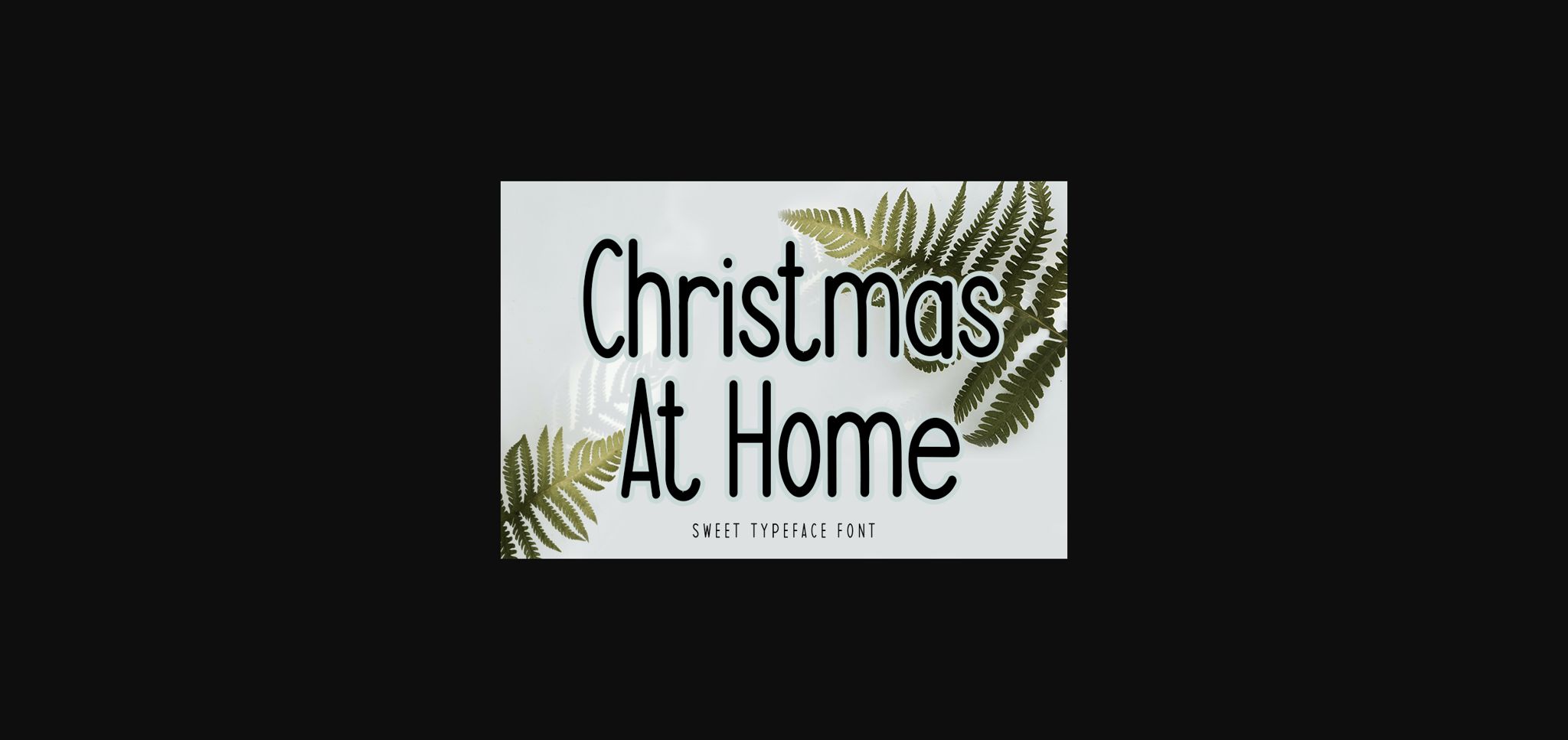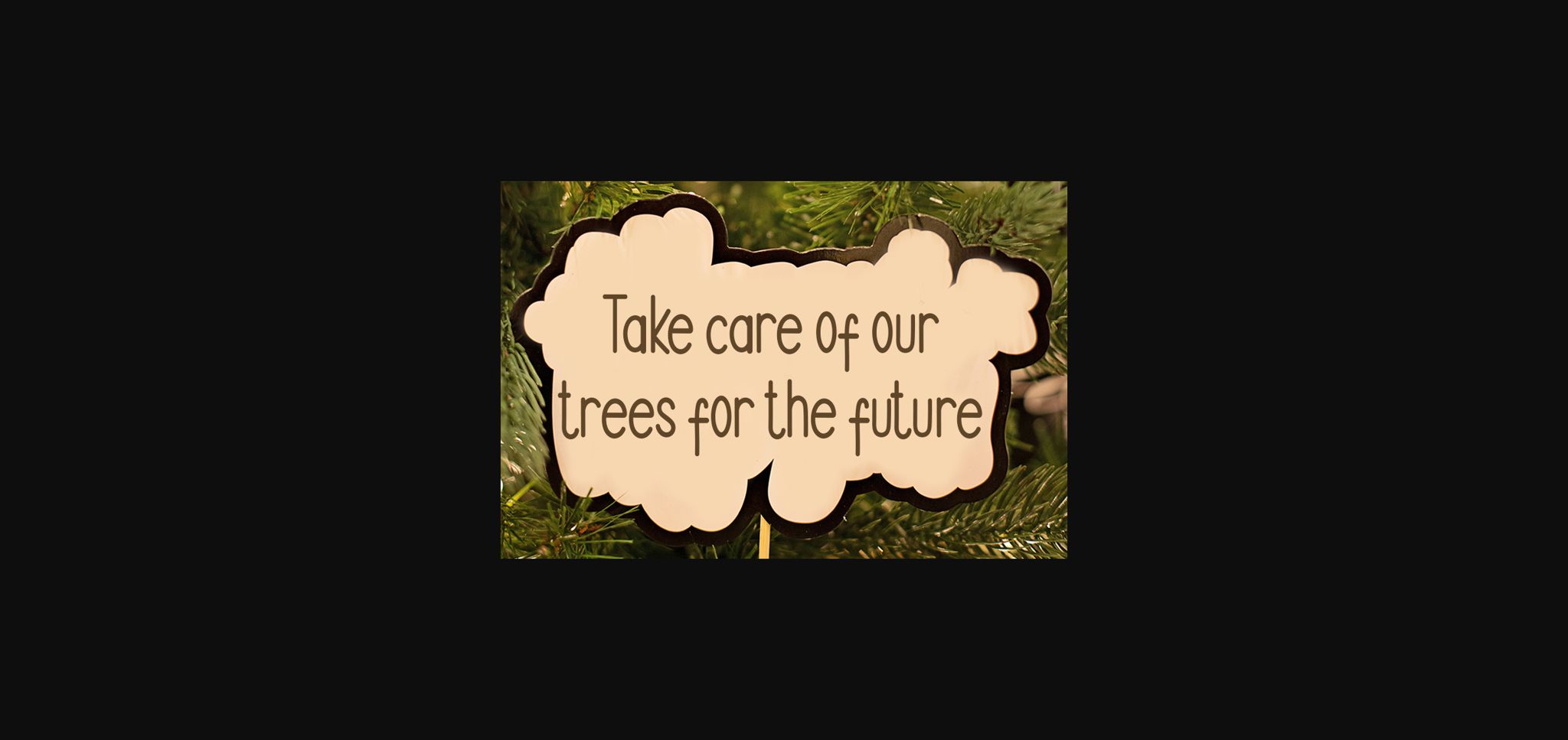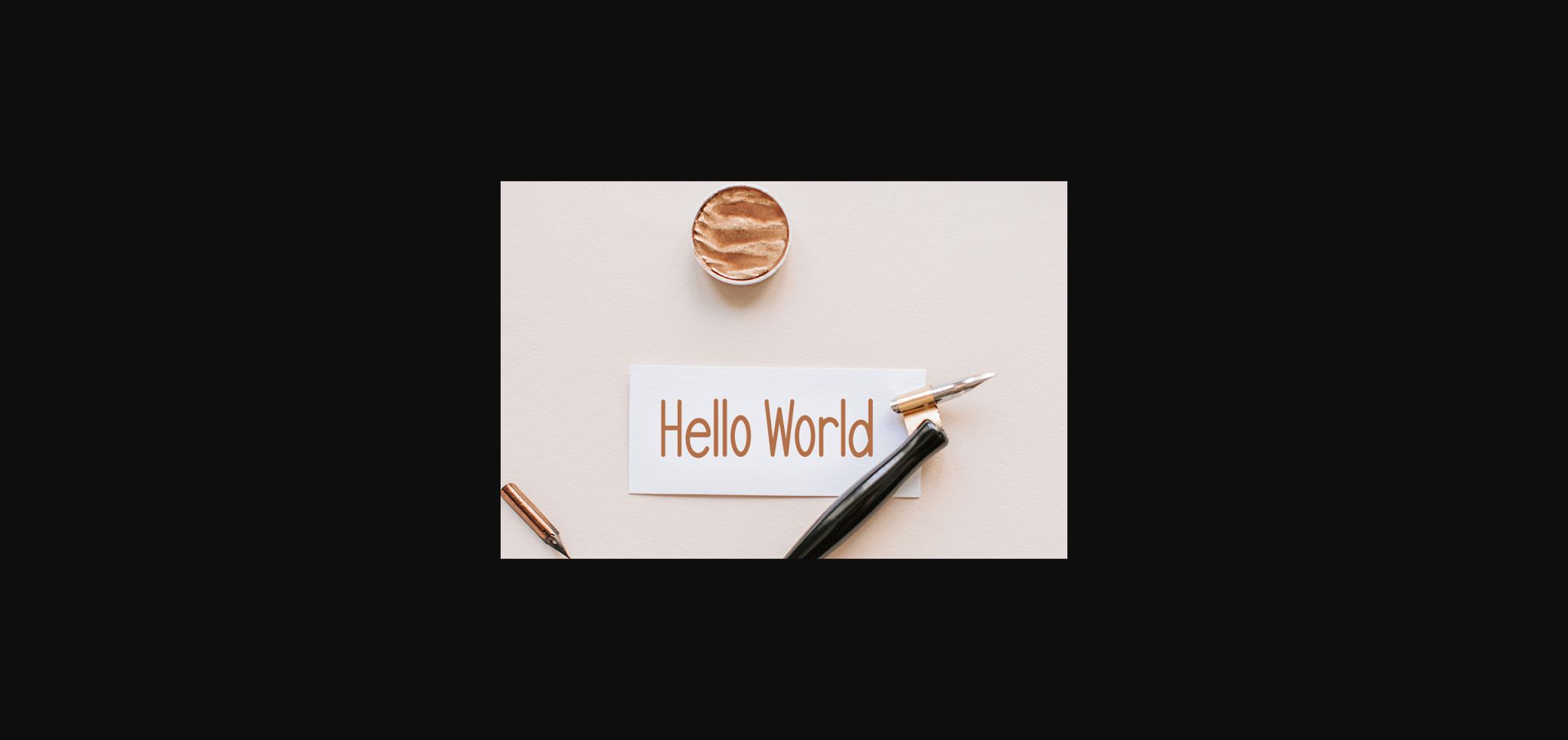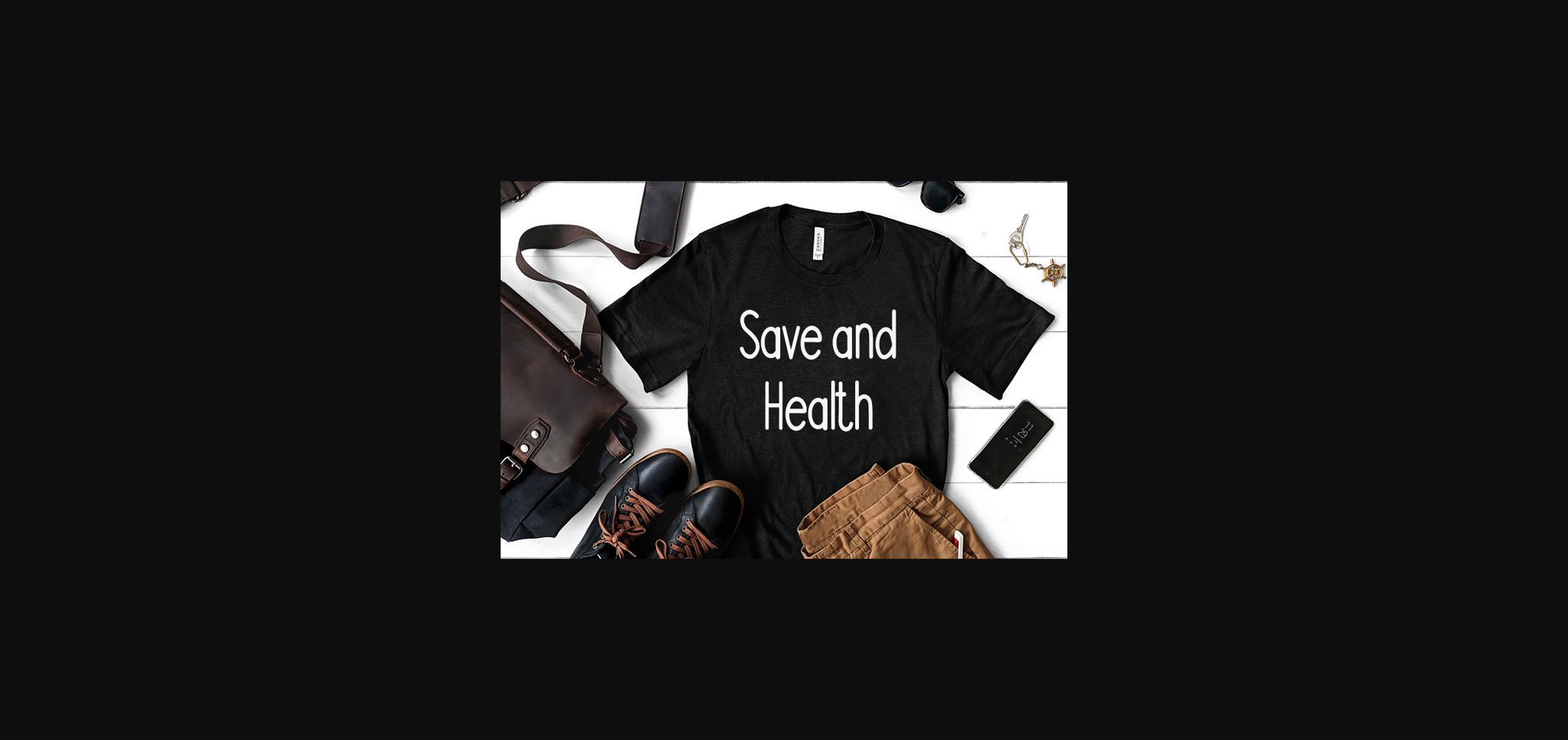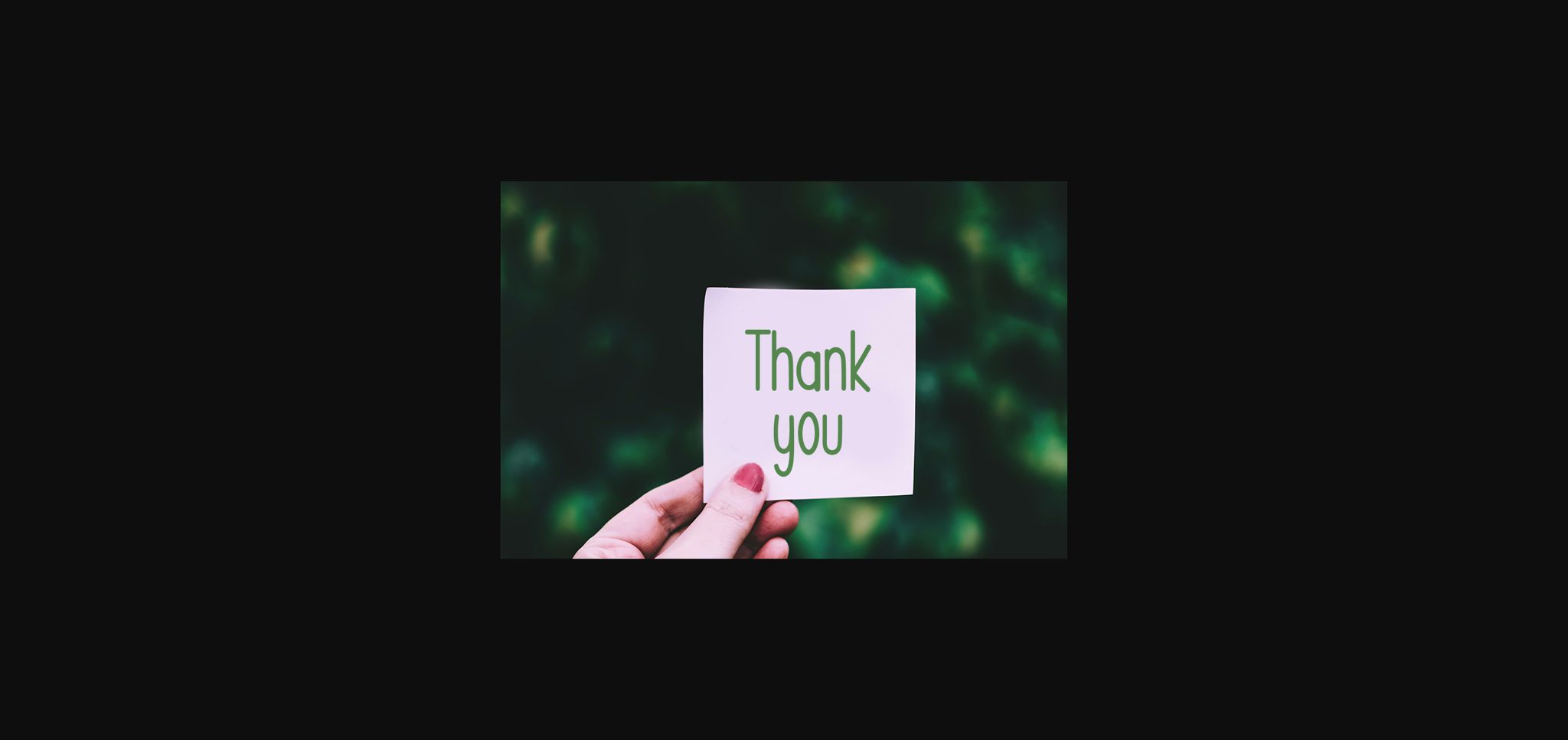
Christmas at Home Font
About Christmas at Home Font
Christmas At Home is a thin lettered and neat sans serif font. It can be used for various purposes such as logos, headings, t-shirts, letterhead, signage, labels, news, posters, badges and so much more.